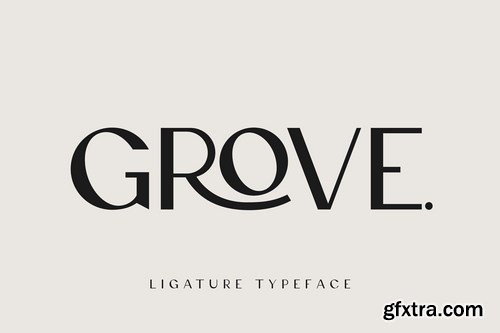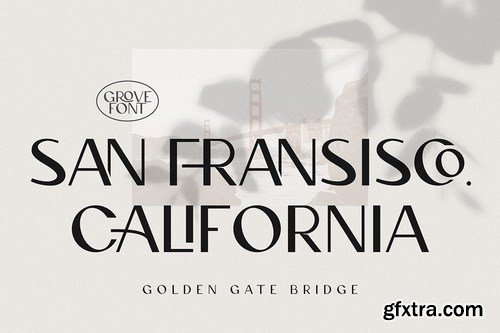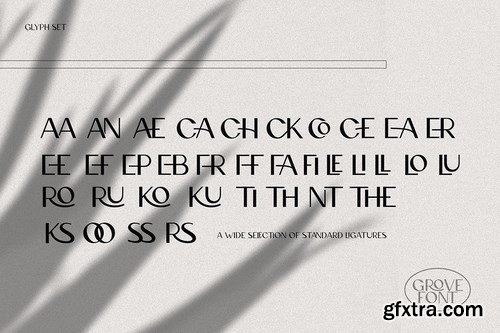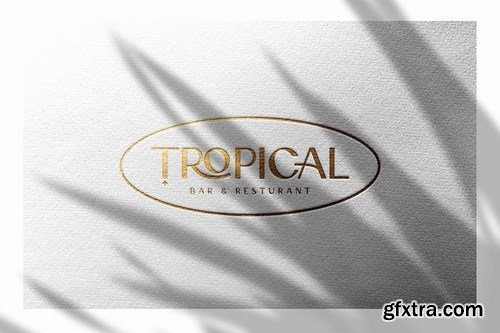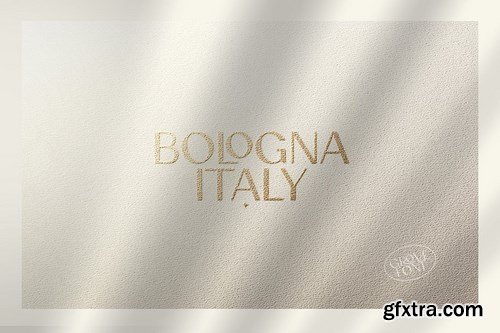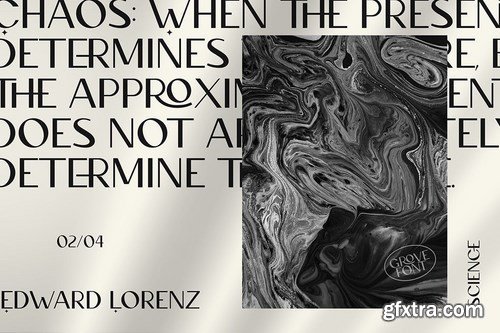
Grove combines in itself the elegance of a classic serif font (high contrast) with the modern and clean lines of a serif font. The wide selection of ligatures also makes it look unique and super customizable - turn ligatures/on or off and play around with tracking for one of a kind look (super useful for branding a logo design).